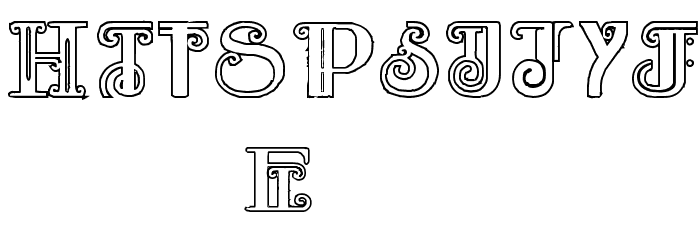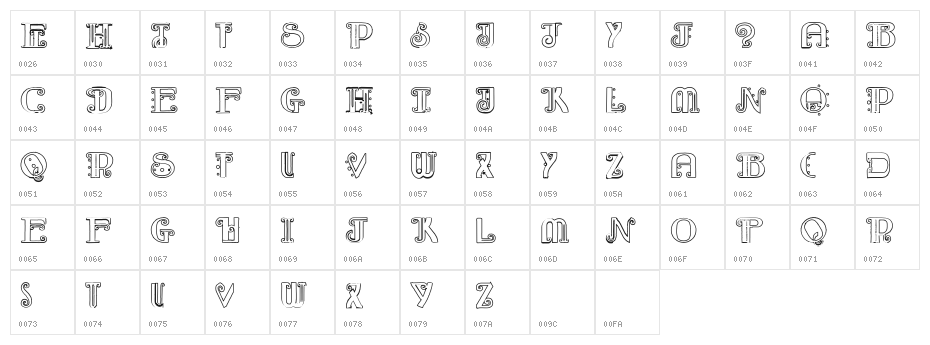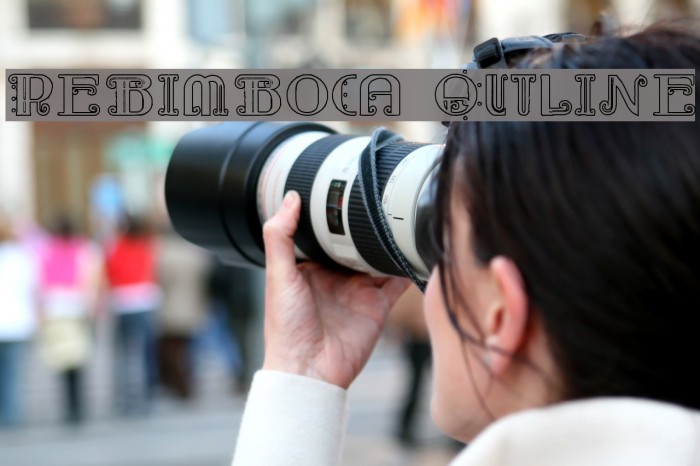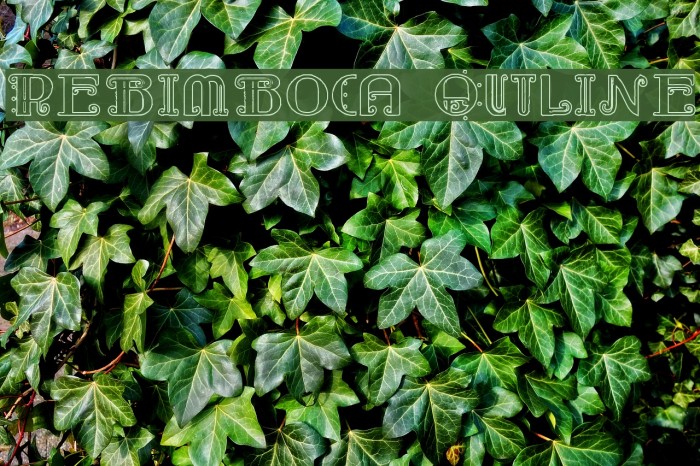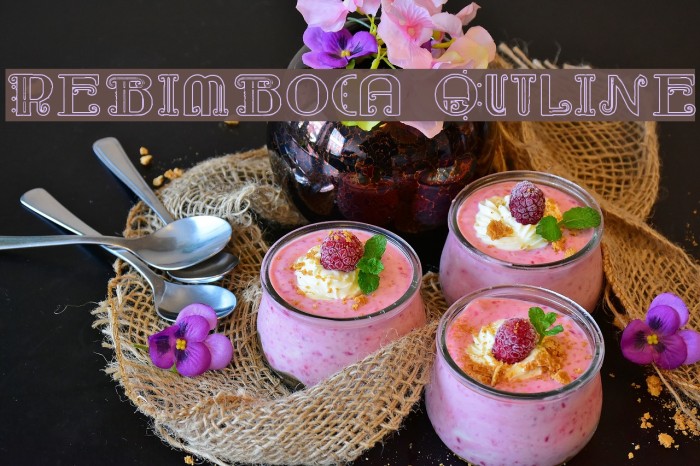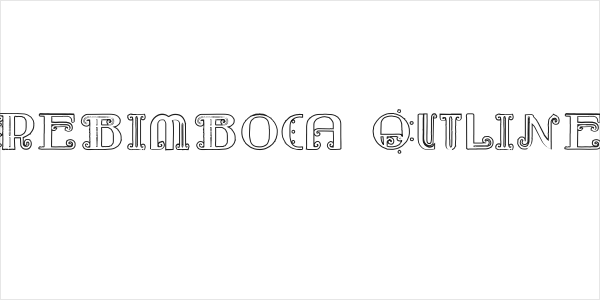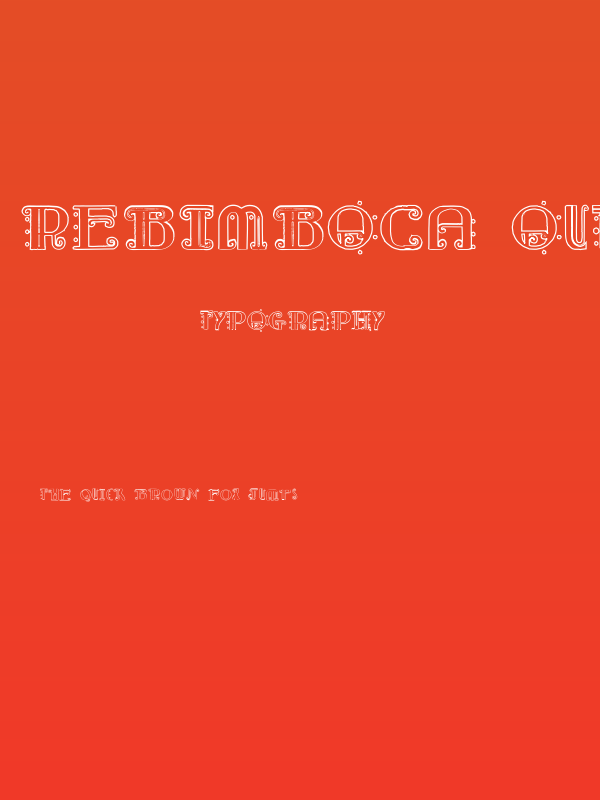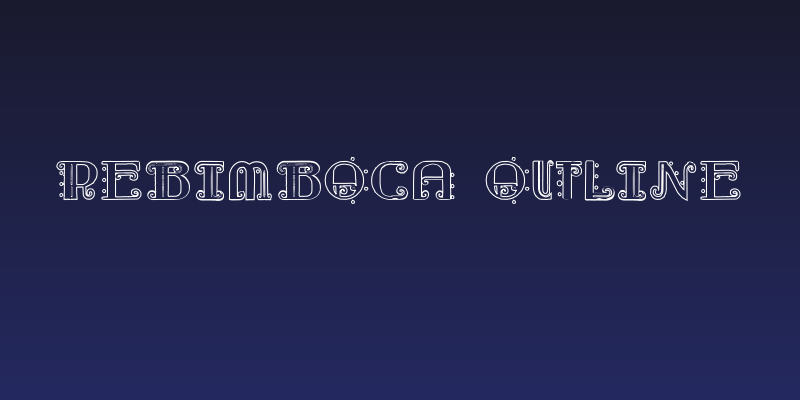
Rebimboca Outline Font
Rebimboca Outline Description
This font features an intricate outline style with decorative elements that add a unique flair to each character. The uppercase letters are bold and eye-catching, with embellishments such as dots and swirls that give them a playful yet sophisticated appearance. The lowercase letters maintain the same decorative style, ensuring consistency throughout the typeface. The numbers and special characters are designed to match the ornate style of the alphabet, making this font ideal for creative projects. The overall design is reminiscent of vintage signage or circus posters, offering a nostalgic yet fresh look.